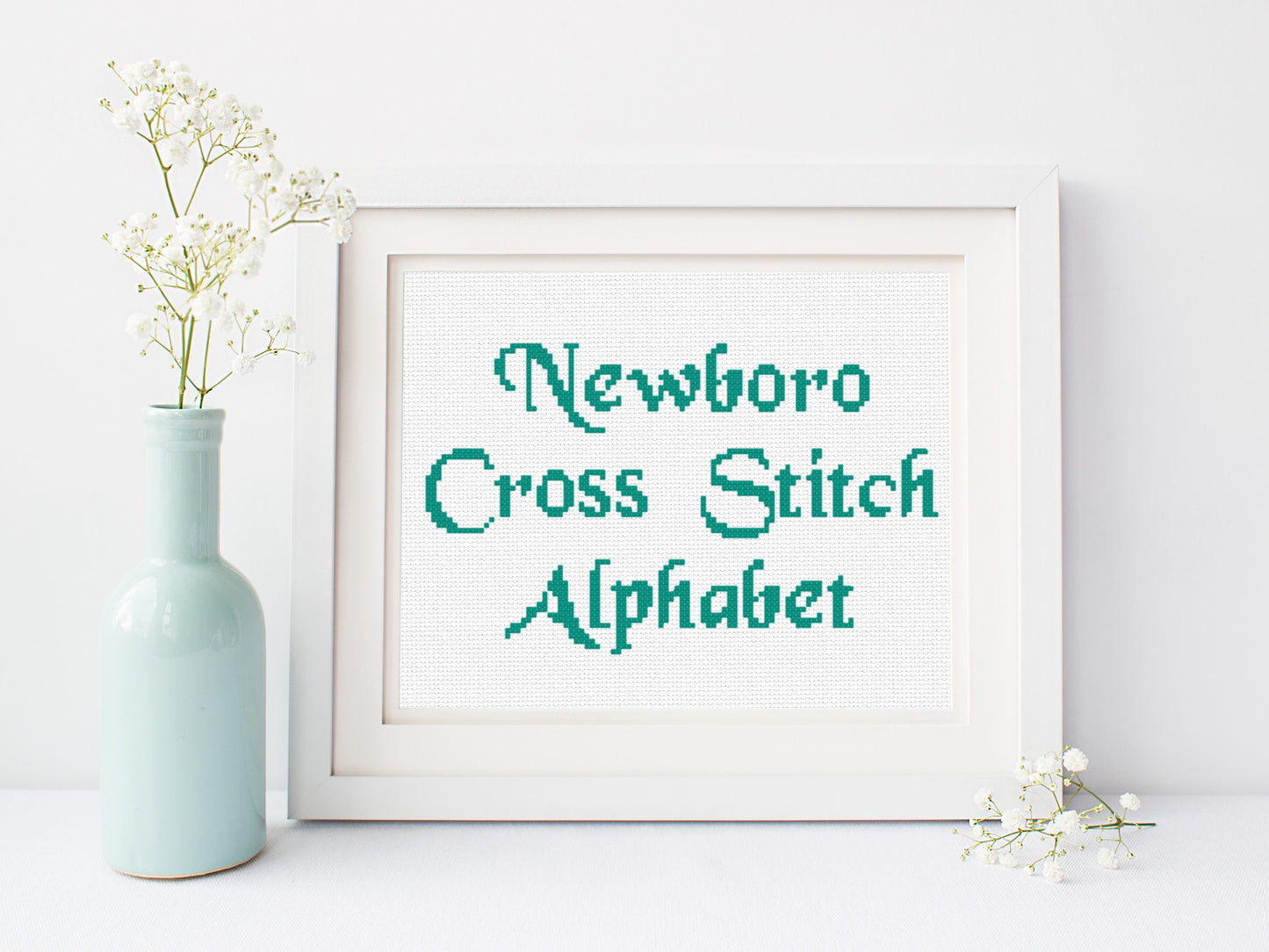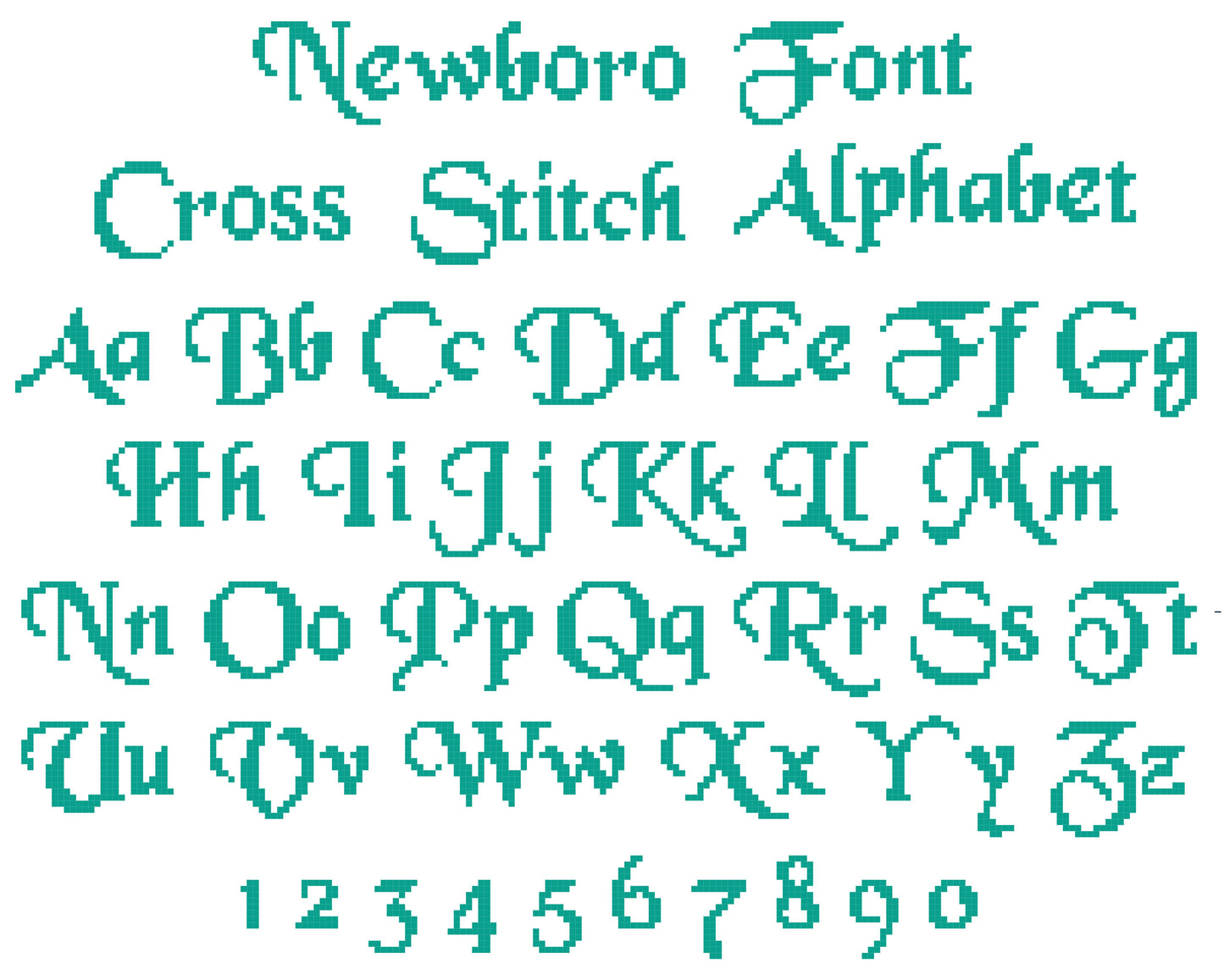
Newboro Font PDF Pattern
This cross stitch font is easy and fast and features simple block lines for a classic look.
Capital letters measure 12-27 stitches wide x 14-19 stitches tall
Lowercase letters measure 7-14 stitches wide x 8-19 stitches tall
Numbers measure 3-9 stitches wide x 8-13 stitches tall
Perfect for Christmas stockings and other small projects
Larger Fonts (with letters measuring 10-20 stitches wide) can usually accommodate names up to 9-10 letters long (assuming your cuff fabric is about 100 stitches wide and there are no additional motifs to either side of the name).